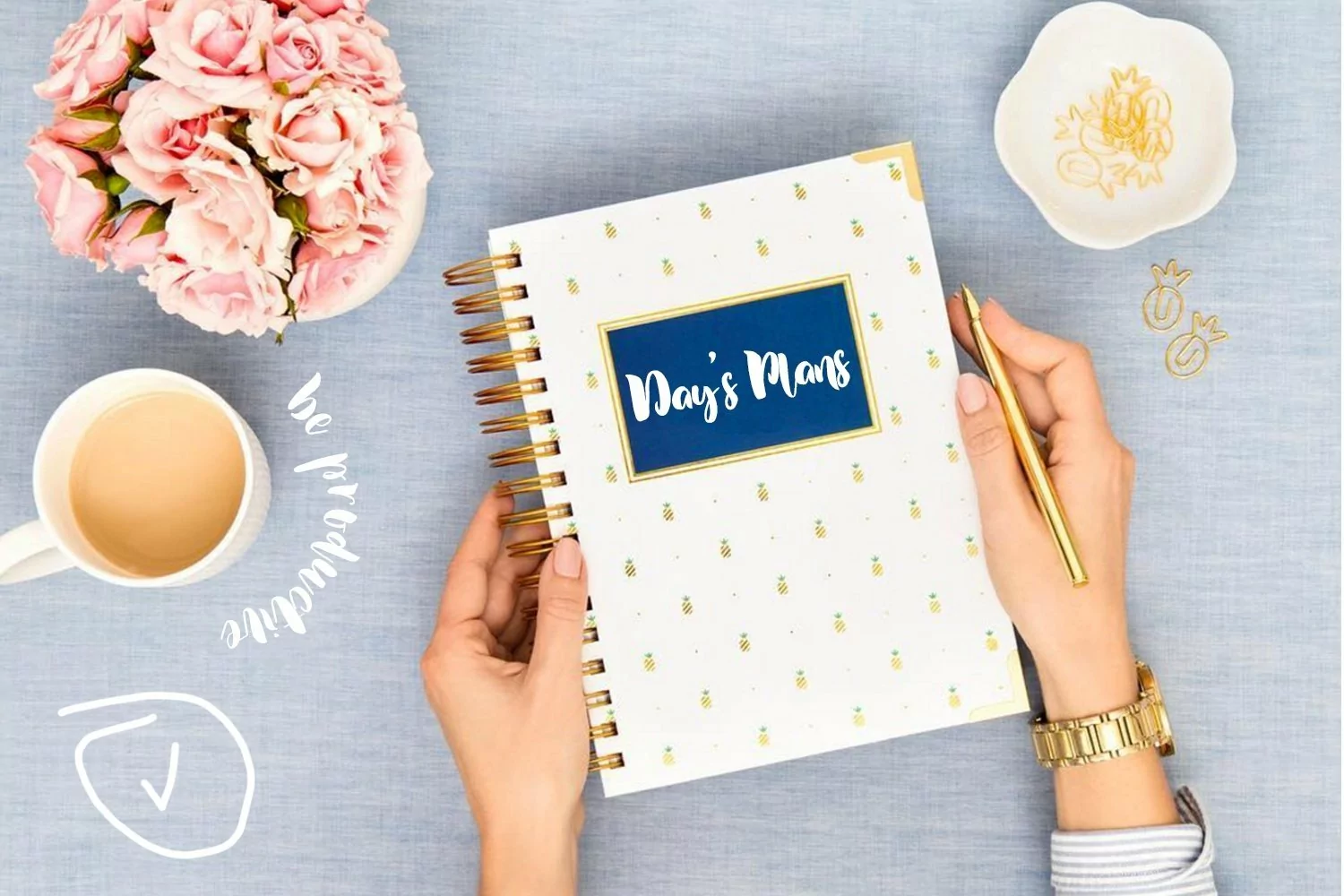
Dusty Lane is a bold condensed handwritten font with a unique character.
It looks perfect on posters, wall prints, greeting cards, planners,
food packaging, banners and so on. Besides that you can use it on social
media and for your own branding - it will add unique handmade touch!
Most
diacritics are included and the font can be used with most of the
European languages (it includes Western European, Central European and
South Eastern European languages).
Over 50 handdrawn doodles are
included in the pack. They complement the font perfectly, allowing you
to create beautiful greeting cards, wall prints and so on!